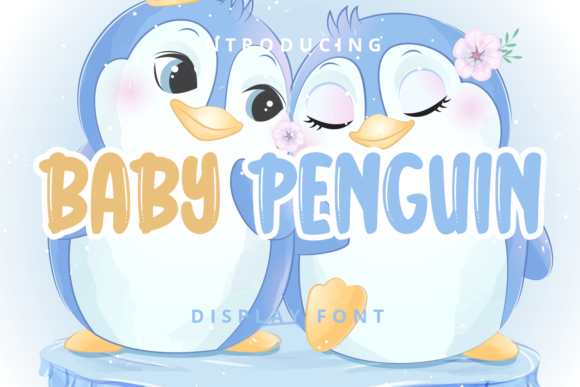
Step into the realm of enchanting artistry with Baby Penguin, a display font crafted to evoke delight and imagination like never before. This whimsical creation from Planetz Studio is not merely a font; it's a passport to a world where letters dance with joy and charm. Dive into a universe of boundless creativity, where your designs take flight on the wings of Baby Penguin's playful spirit.
Unleash your inner child and let your imagination run wild with this captivating display font. Its playful and fun nature radiates warmth and happiness, transforming your projects into captivating masterpieces. Whether you're designing children's books, playful posters, or whimsical invitations, Baby Penguin is your trusted companion, ready to add a touch of magic to every stroke.
With Baby Penguin, authenticity comes alive. Each character exudes a genuine and heartfelt essence, perfectly capturing the innocence and wonder of childhood. It's a perfect choice for projects aiming to connect with young audiences, evoking a sense of nostalgia and heartfelt joy. Whether you're creating illustrations, greeting cards, or heartfelt messages, Baby Penguin weaves a tapestry of emotions, leaving a lasting impression on every viewer.
Experience the versatility of Baby Penguin, a font that adapts seamlessly to a myriad of design endeavors. Let your creativity flourish as you explore its boundless potential. Embrace the spirit of Halloween with posters that pop with eerie elegance. Craft enchanting invitations that transport recipients to a realm of wonder. Design logos that exude a playful charm, capturing the hearts of all who behold them. The possibilities are as limitless as your imagination.
Dive into the world of Baby Penguin and embark on a creative journey like no other. Its user-friendly nature makes it accessible to all, inviting you to explore the depths of your creativity without boundaries. Join the ranks of satisfied designers who have discovered the magic of Baby Penguin, transforming their projects into captivating works of art. Let your designs dance with delight, radiate authenticity, and soar to new heights of creativity with Baby Penguin as your trusted guide.